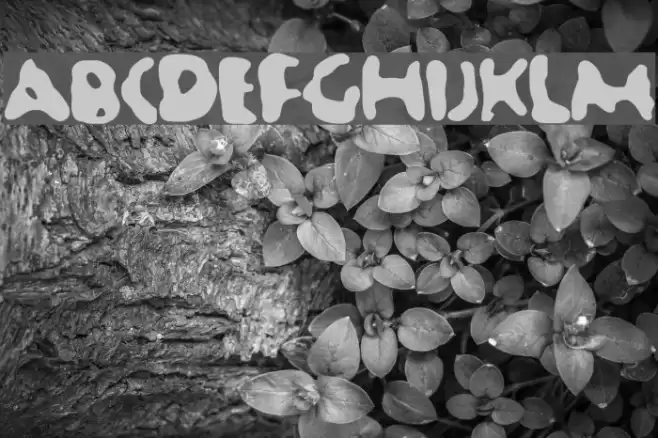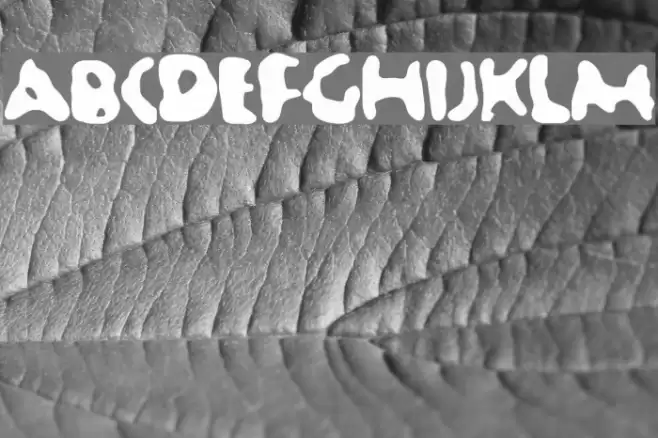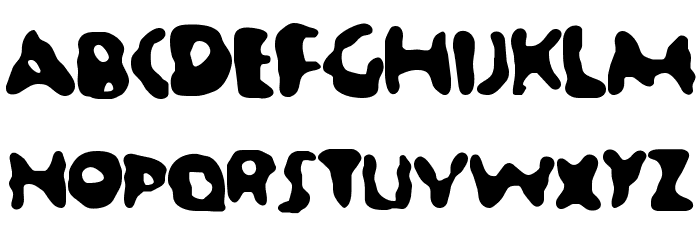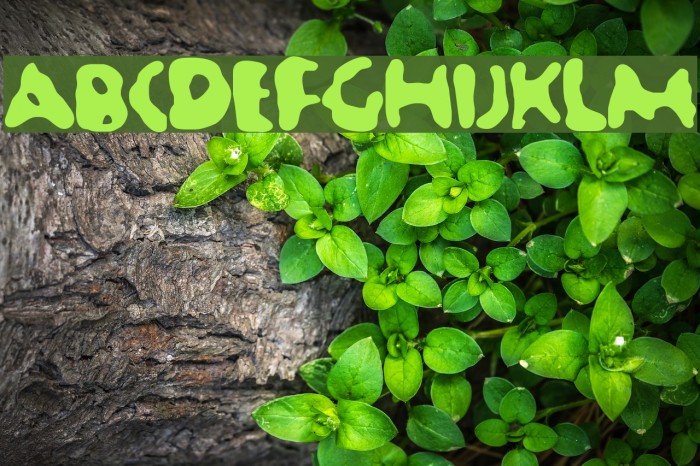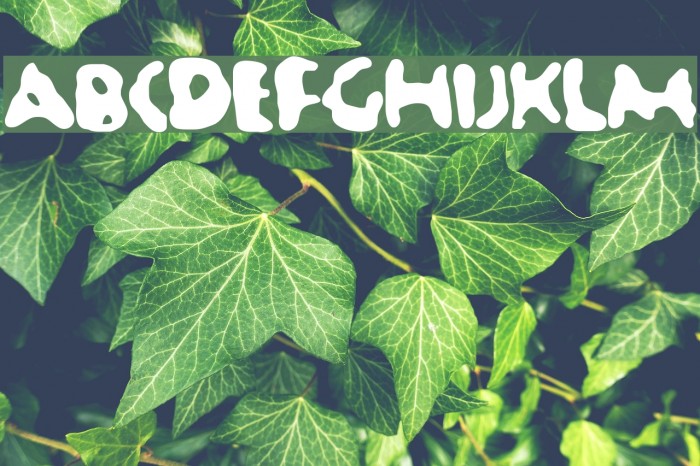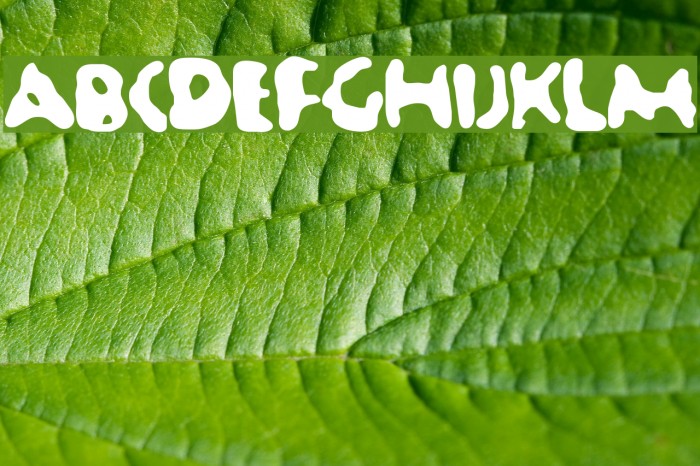
Jellybean Font
Jellybean Description
This playful and bold font features a unique, bubbly design reminiscent of jellybeans. Each character is crafted with a rounded, organic shape that gives it a whimsical and fun appearance. The letters are thick and substantial, with a slightly uneven texture that adds to their charm. This font is perfect for projects that require a touch of humor and creativity, making it ideal for children's books, playful branding, or any design that aims to evoke a sense of joy and lightheartedness.
A playful, bold font with a bubbly, jellybean-like design from Uncategorized fonts.
- Proposed Projects: Ideal for children's books, playful branding, party invitations, and creative posters.
- Overall Style: Playful, Whimsical